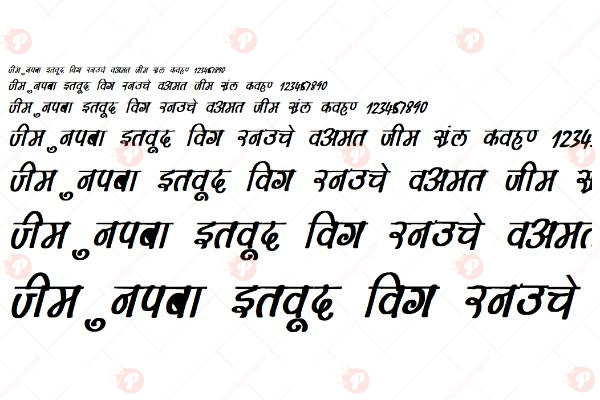
The Maya Bold Italic Font combines strength and elegance in Devanagari typography. With its bold weight and italic slant, this font brings a dynamic, stylish, and expressive look to Hindi and Sanskrit text.
Perfect for festival posters, invitations, book covers, devotional projects, cultural branding, banners, and social media graphics, the Maya Bold Italic Font delivers a balance of tradition and modern flair. Its slanted design makes your words stand out while keeping the authentic Devanagari style intact.
Script: Devanagari (Hindi / Sanskrit / Marathi / Nepali)
Style: Bold Italic / Slanted / Traditional Typeface
| Optimum Size | Large (Display / Poster) |